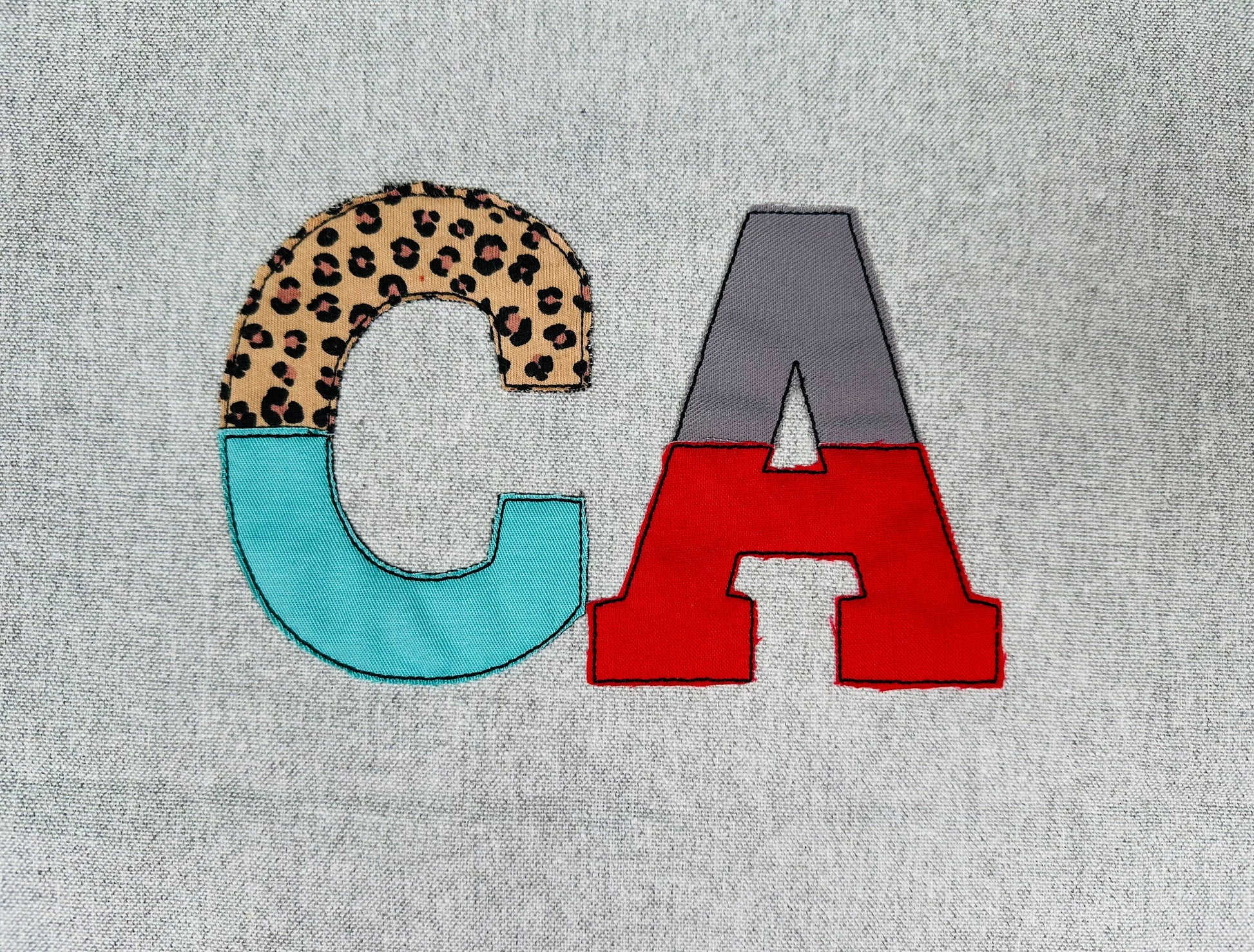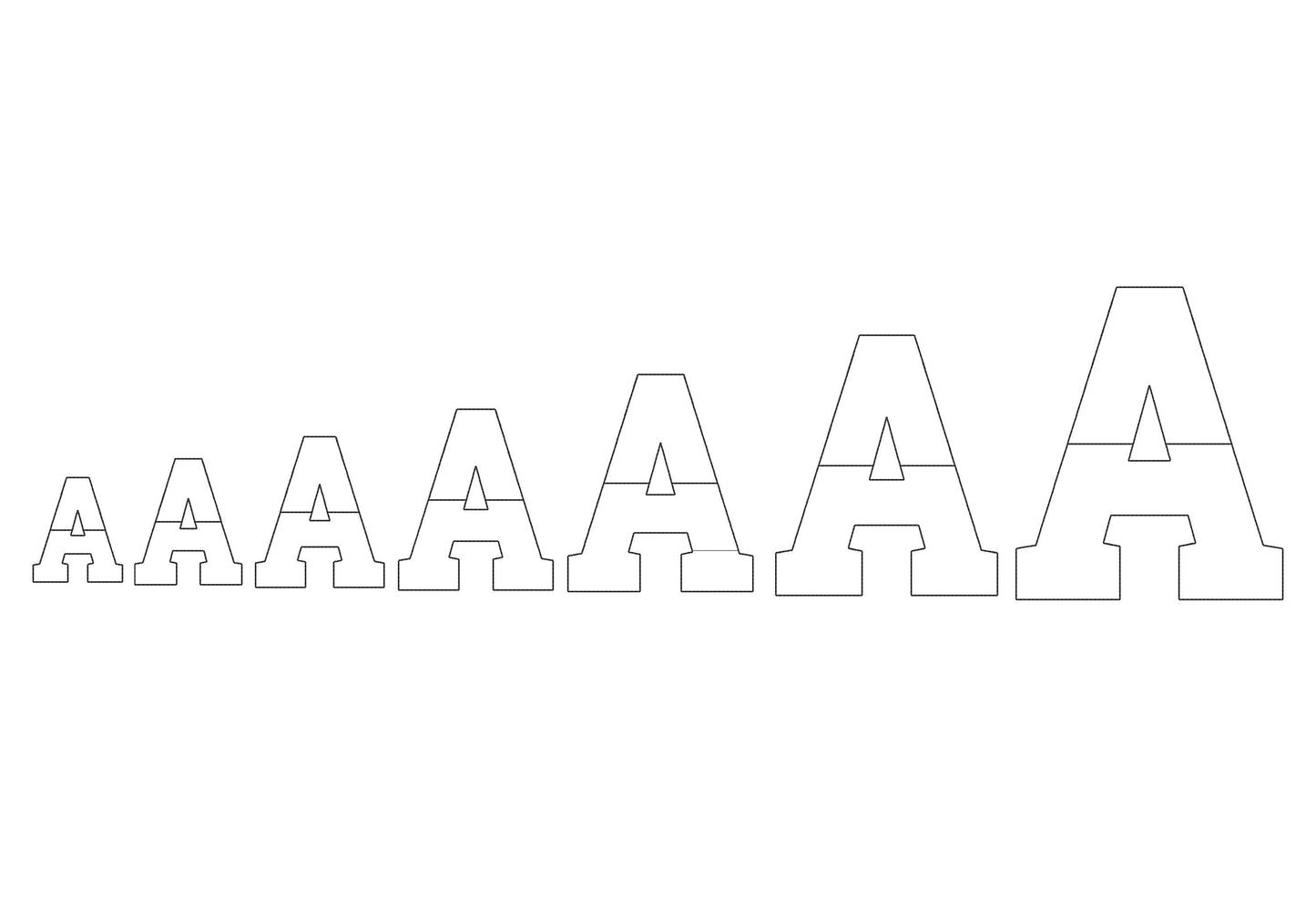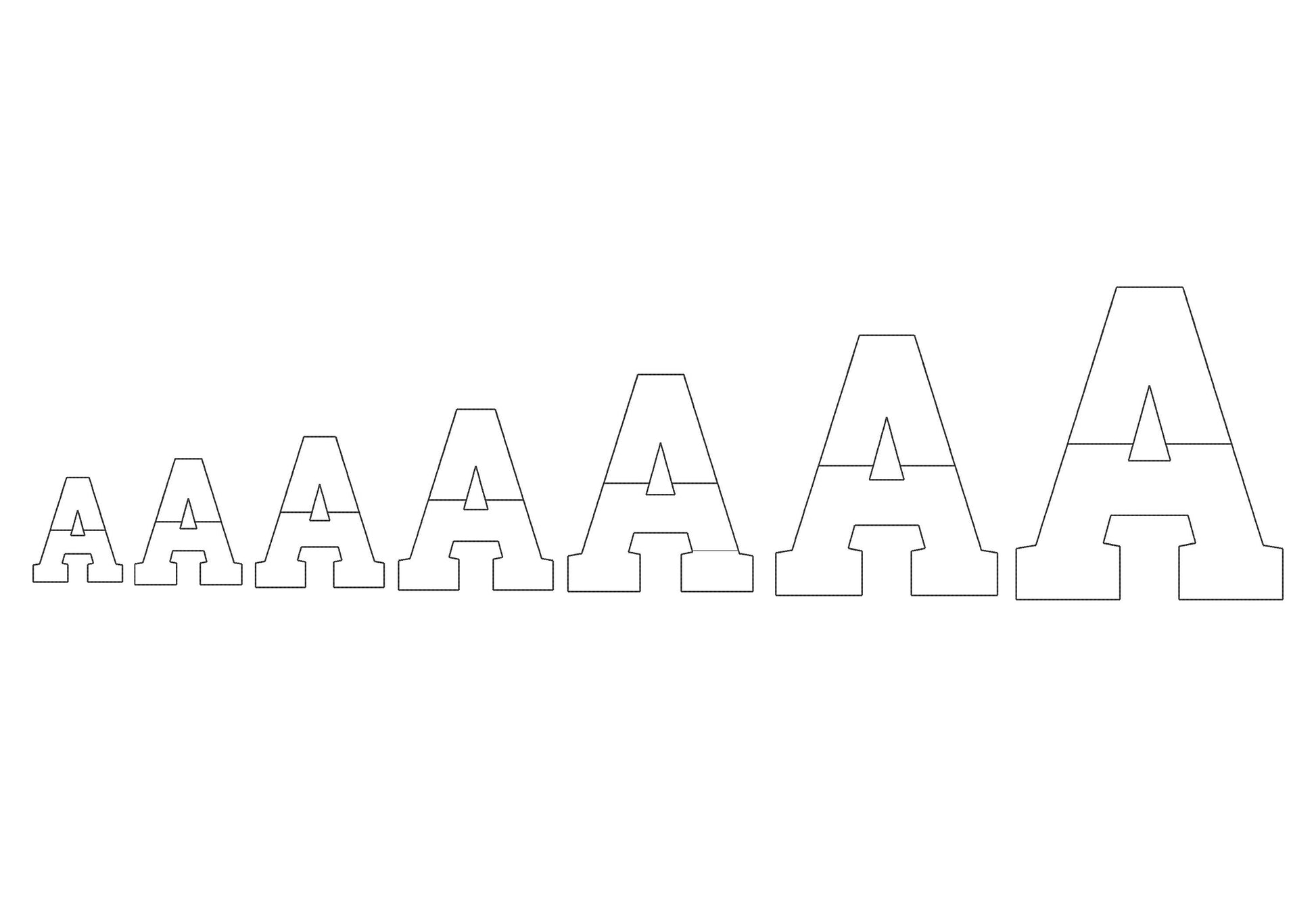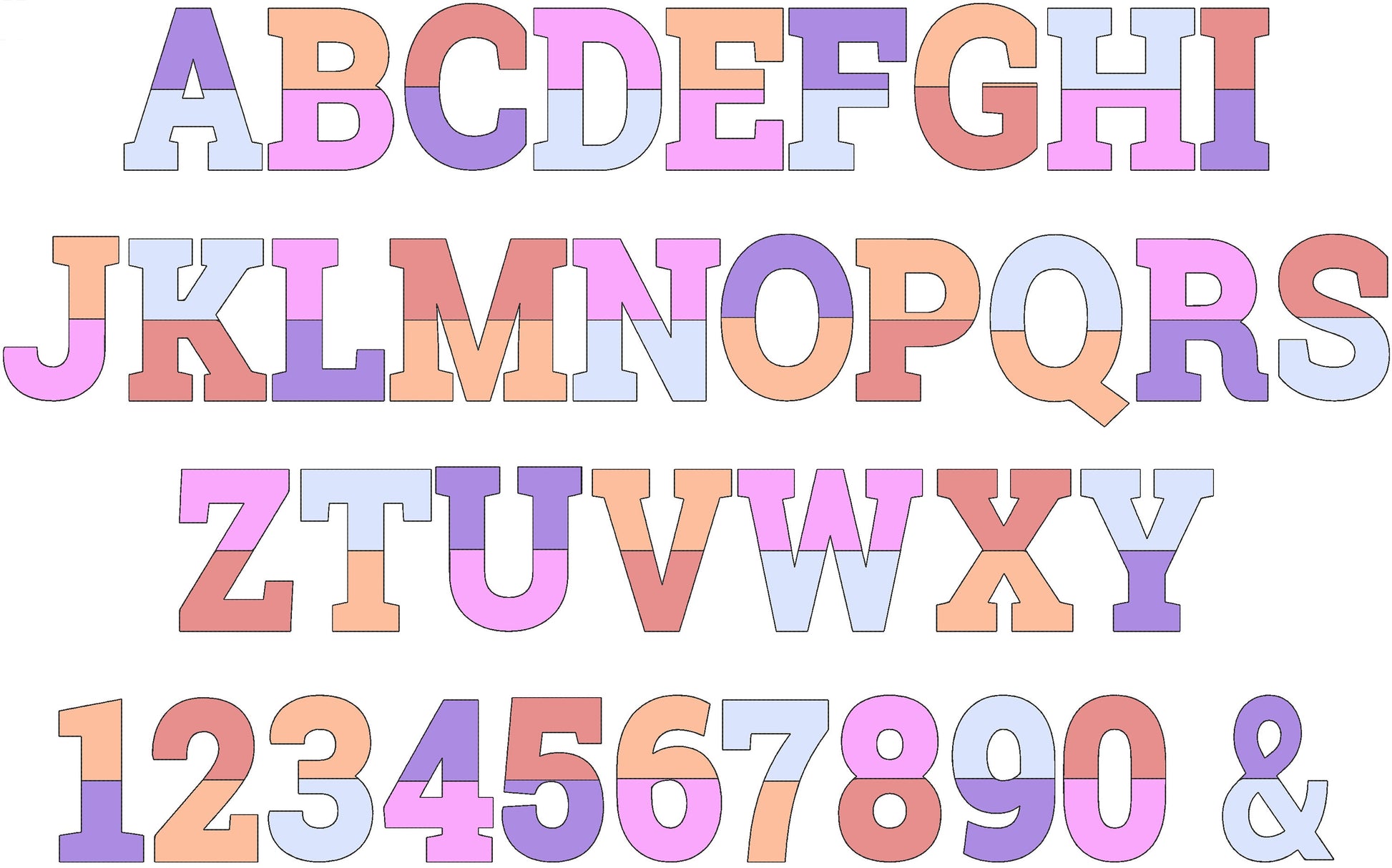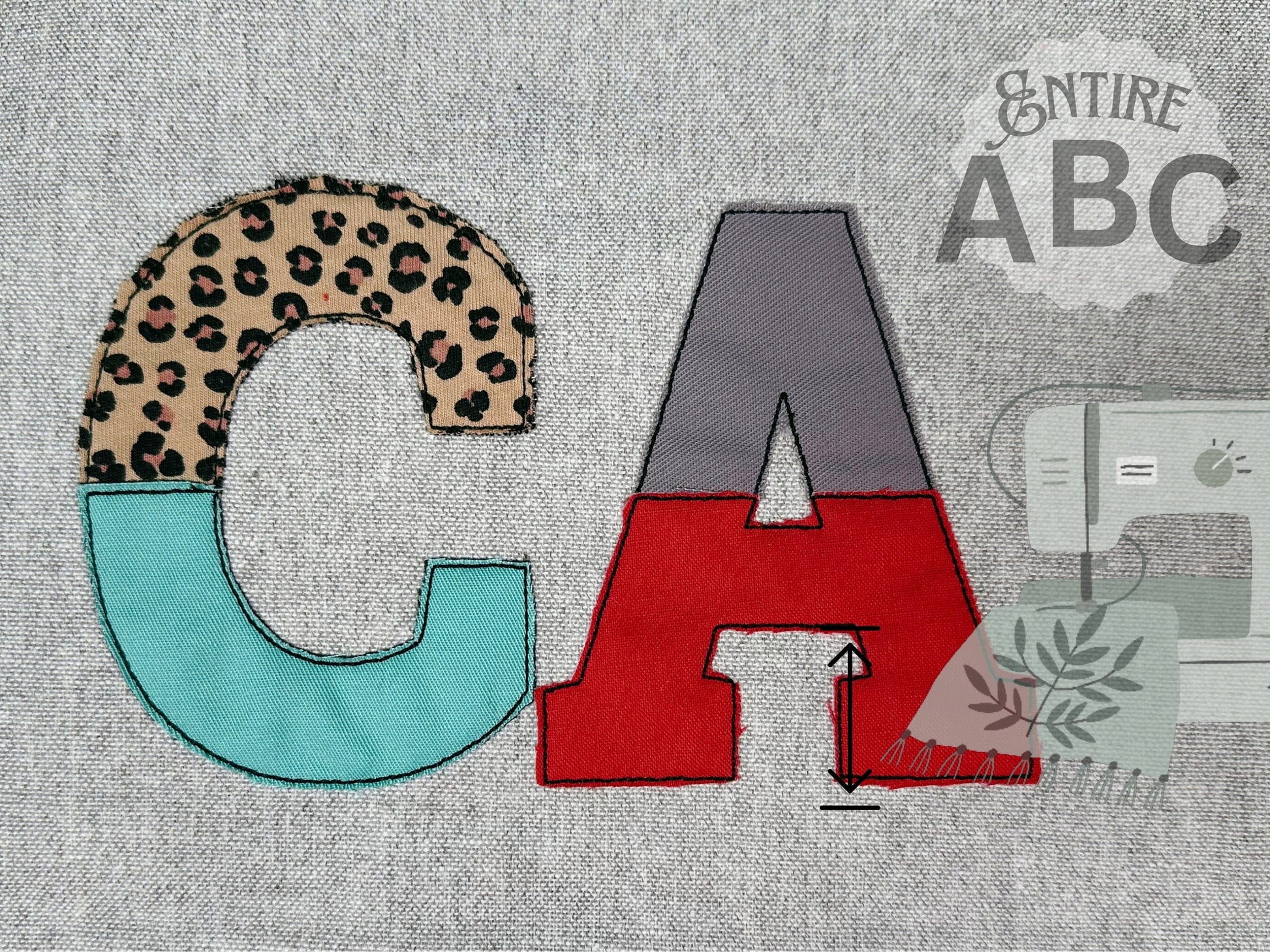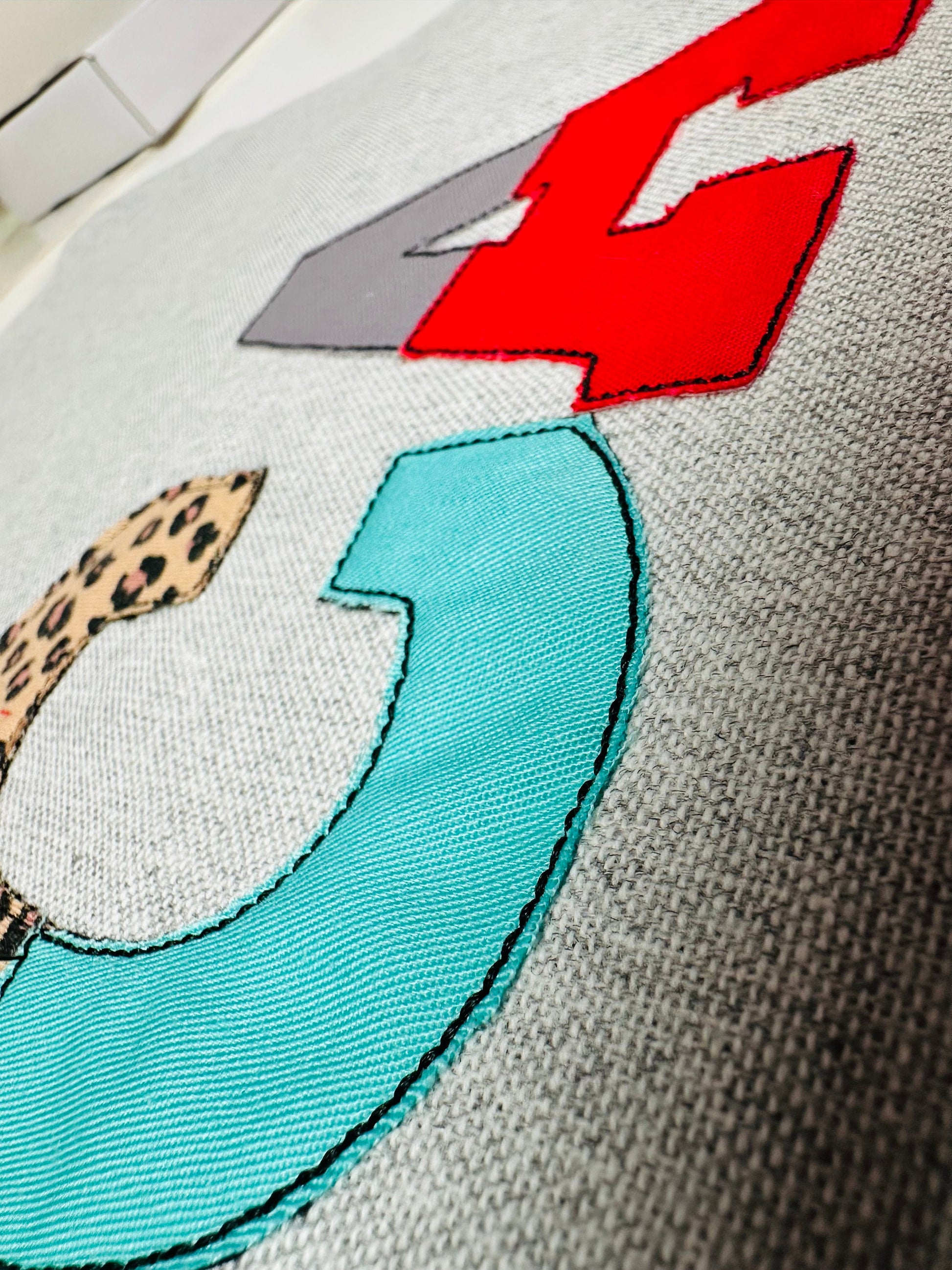
Raggedy Applique Split Font
Or click to open the linkA light raggedy applique block font with split, two-color letters and a bean stitch outline. Nice for patchwork-style names, monograms, quilts and kids' clothes.
The letters come in seven sizes: 2, 2.5, 3, 3.5, 4, 5 and 6 inches. Each letter is split into two applique parts with open, raggedy edges and a bean stitch outline, so you can mix two fabrics.
- Split raggedy applique block font, bean stitch outline
- 7 sizes, 2 to 6 in